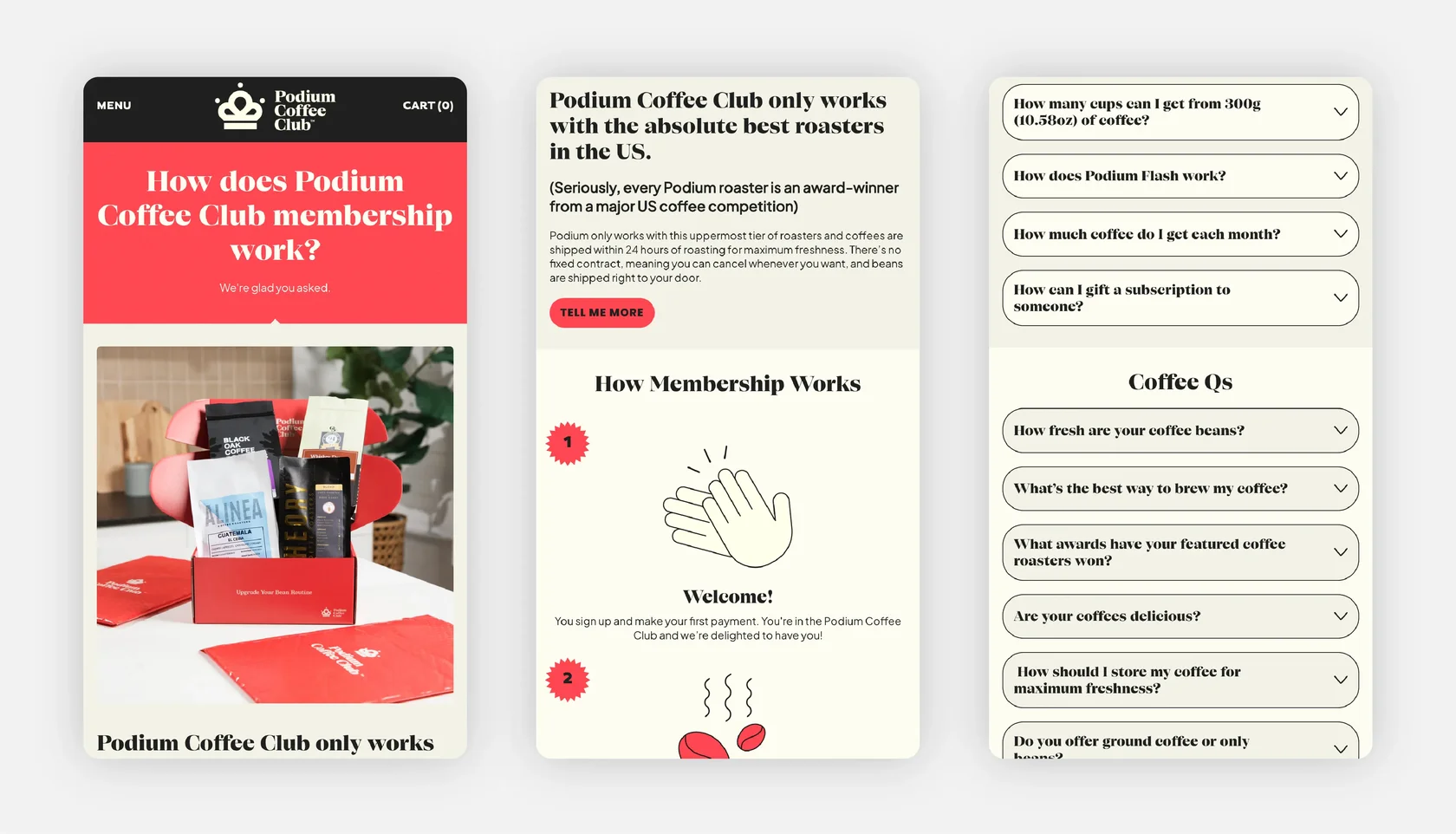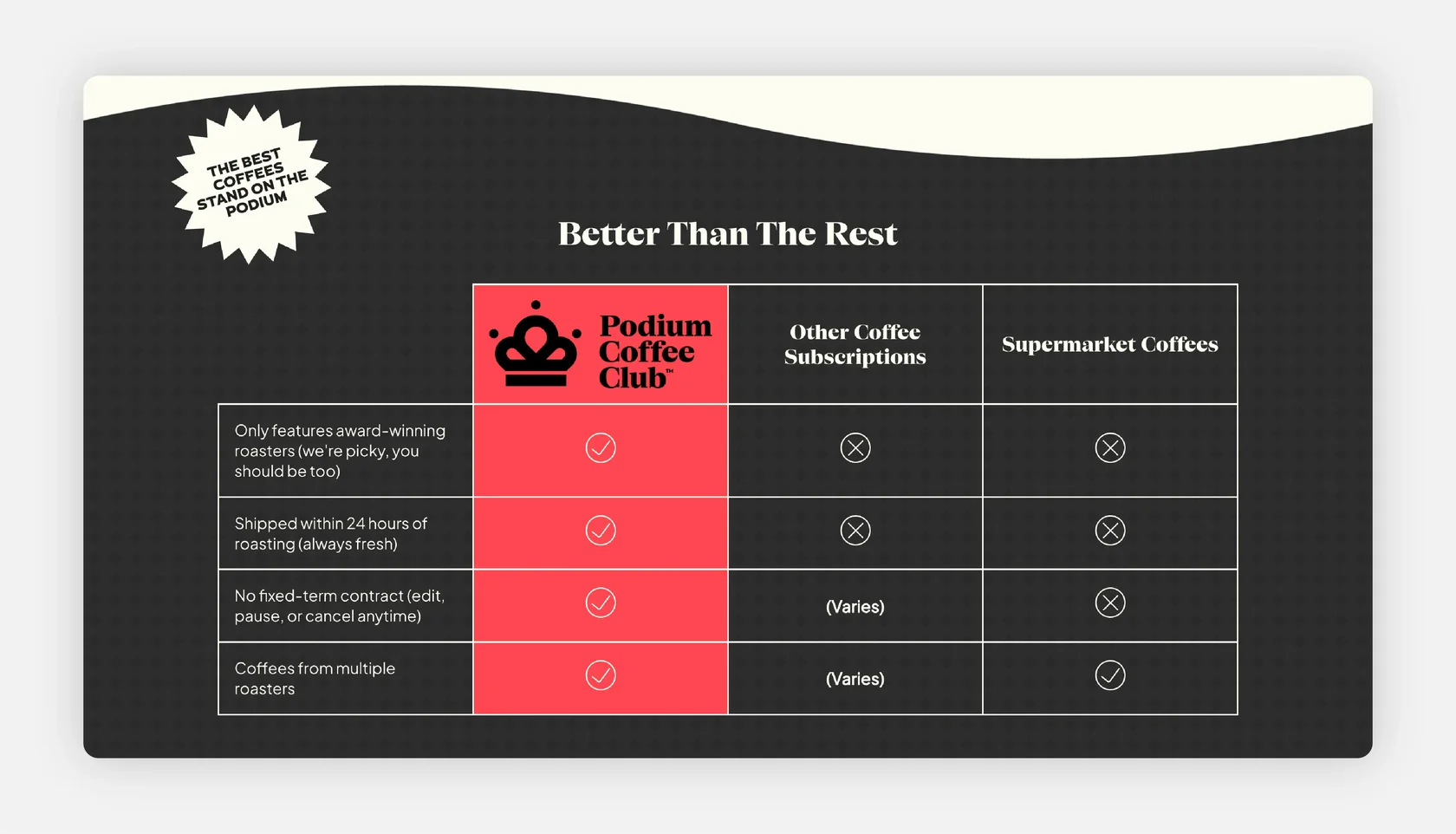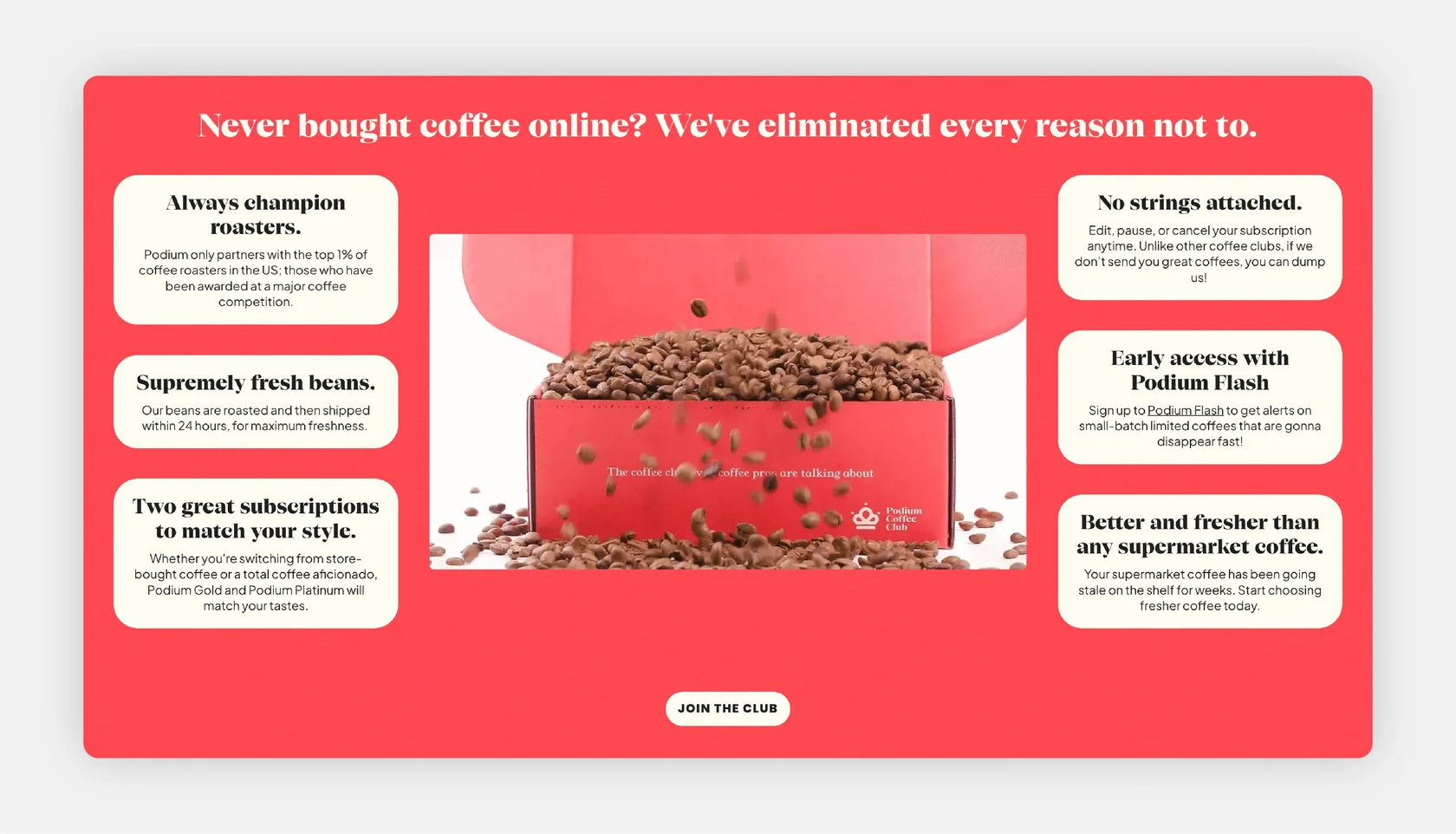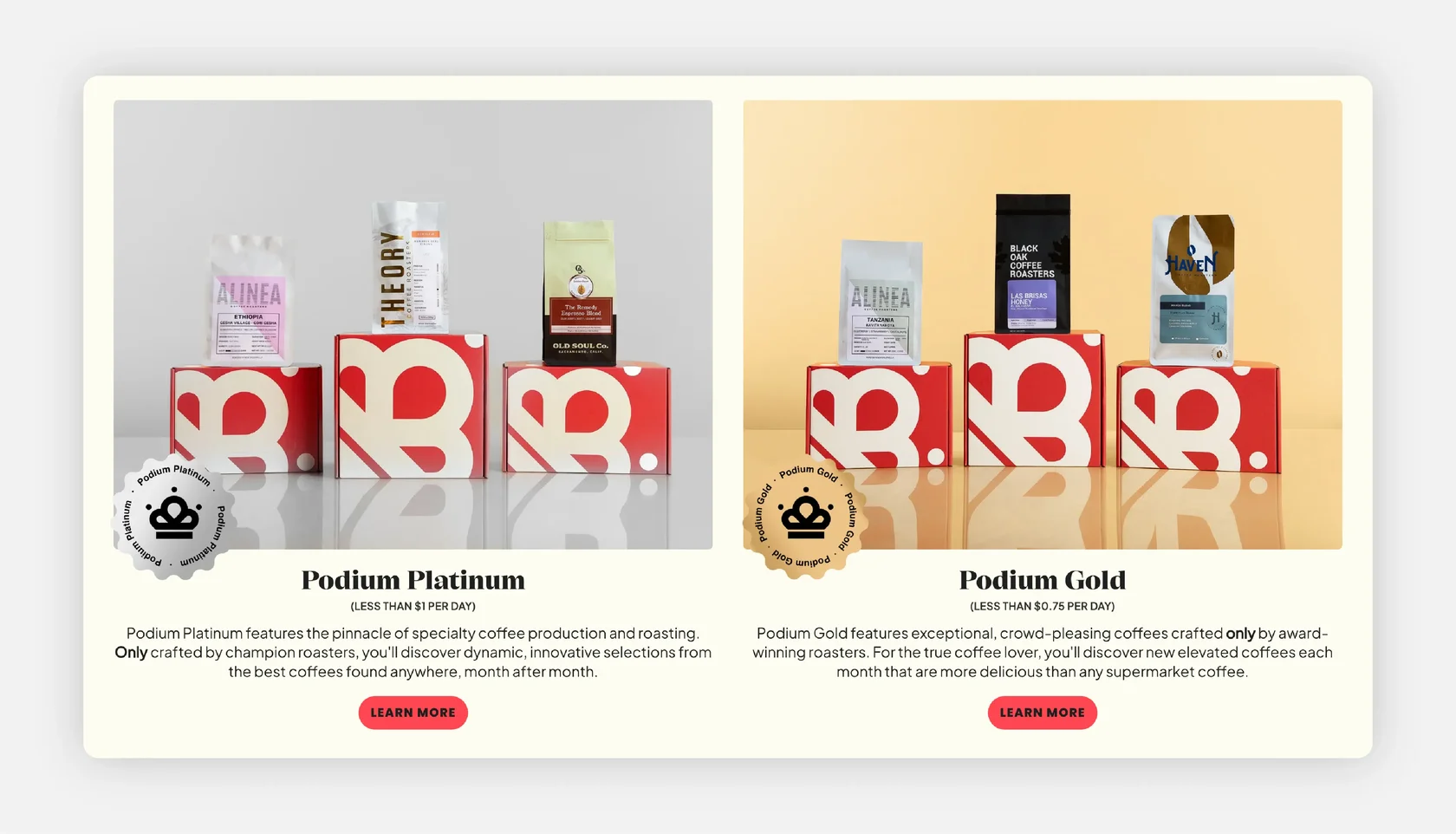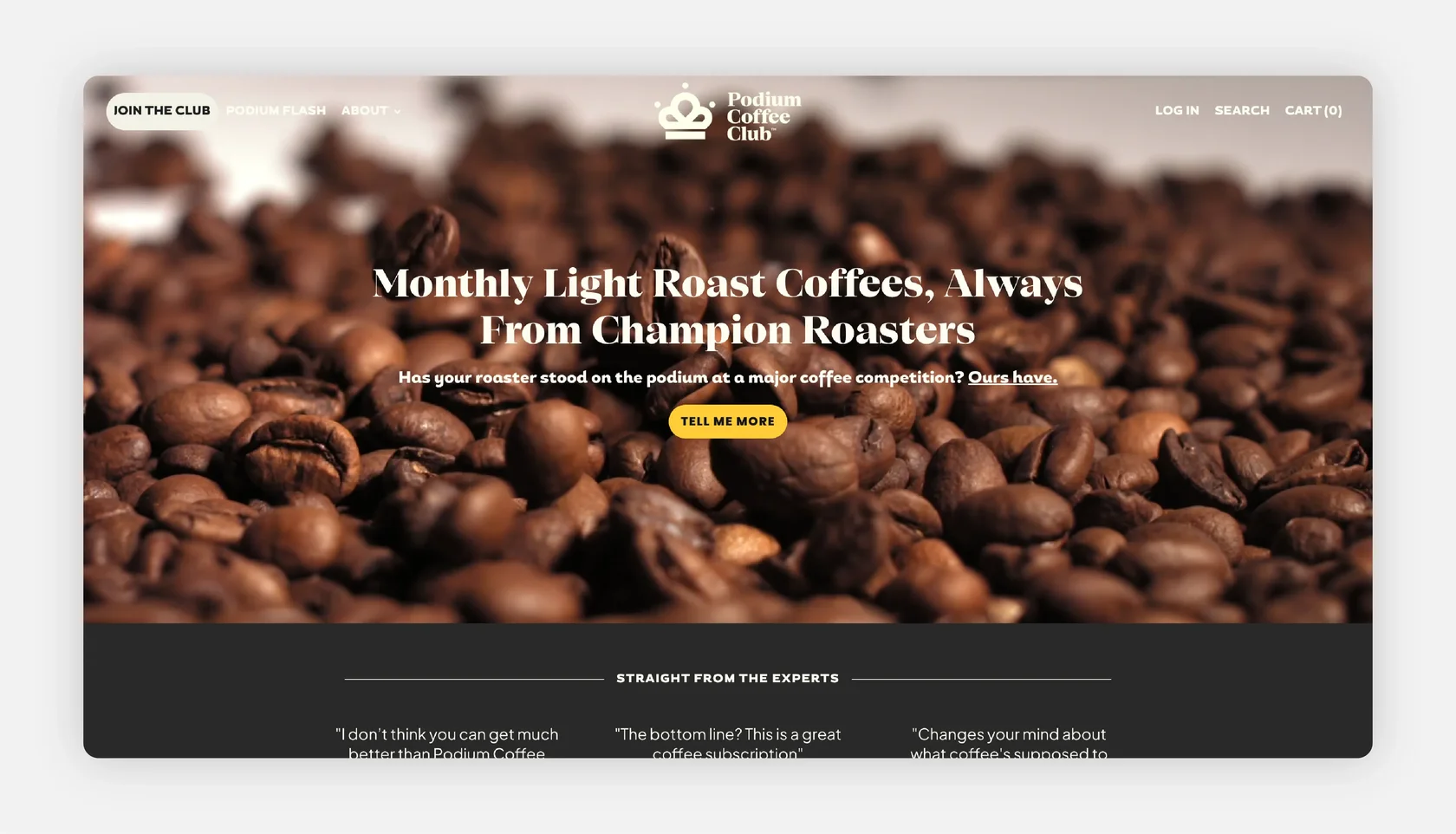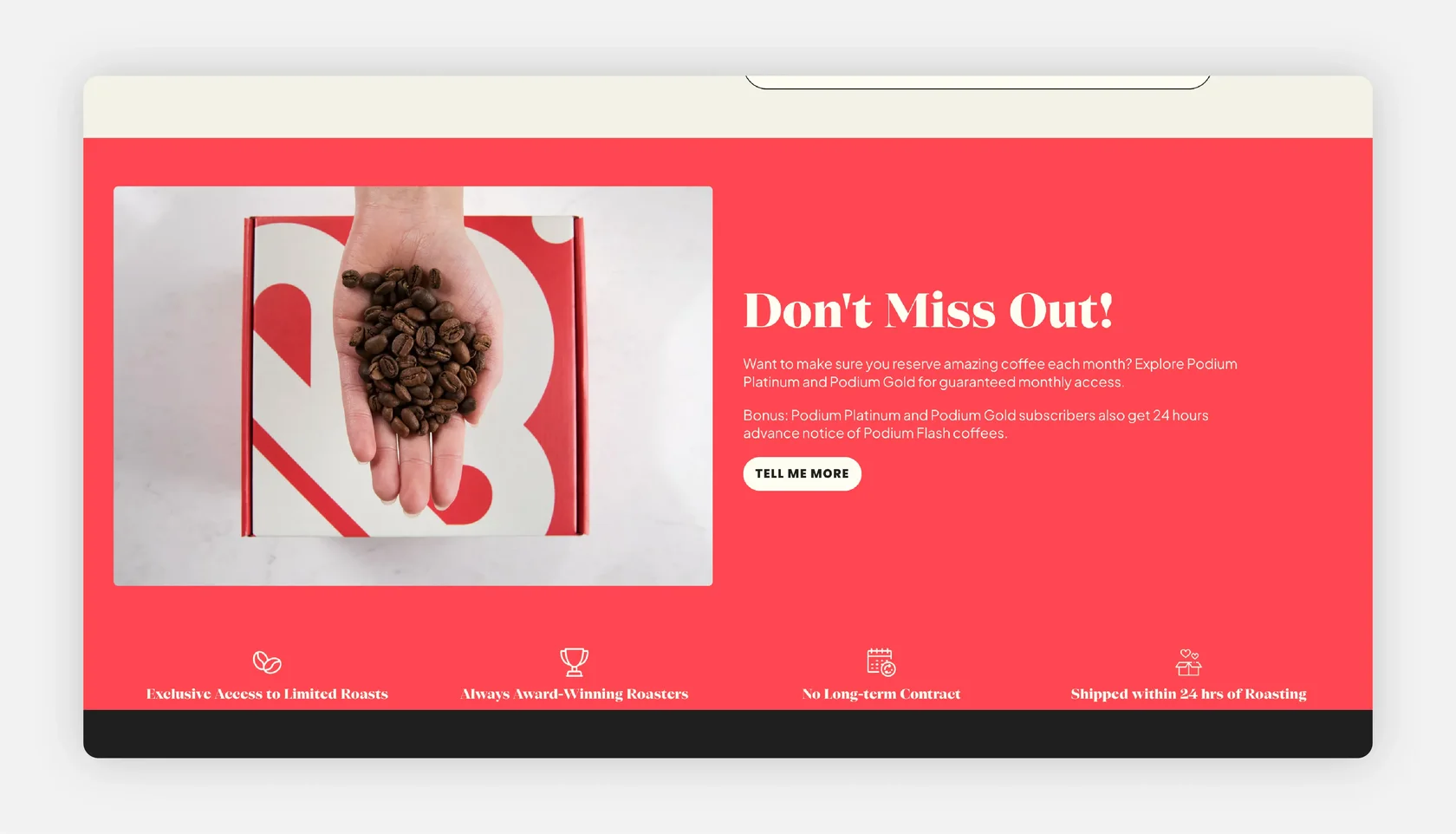
Metropolis — Subscription Coffees from Champion Roasters
Font: SFT Schrifted Serif (Display ExtraBold).
About the Project:
Podium Coffee Club is a U.S.–based subscription service curating monthly light-roast coffees exclusively from award-winning roasters, shipped within 24 hours of roasting. The site explains the club model (Gold/Platinum plans), “Podium Flash” limited drops, and quality standards through clear, sales-flow pages and reviews.
Why SFT Schrifted Serif?
SFT Schrifted Serif is used as an accent typeface for headlines and key statements, introducing a sense of premium quality and refined taste. The serif’s elegant tone elevates value messages—freshness, award-winning provenance, and carefully curated selections—while providing distinctive emphasis throughout the customer journey.